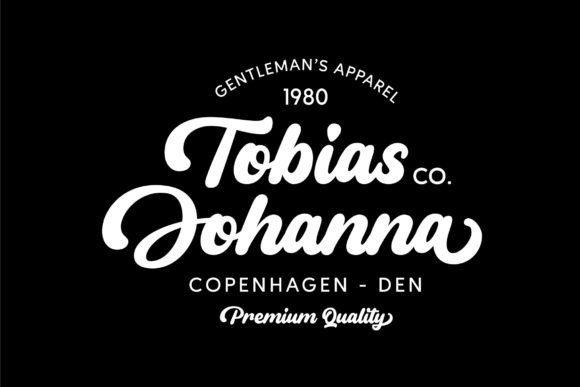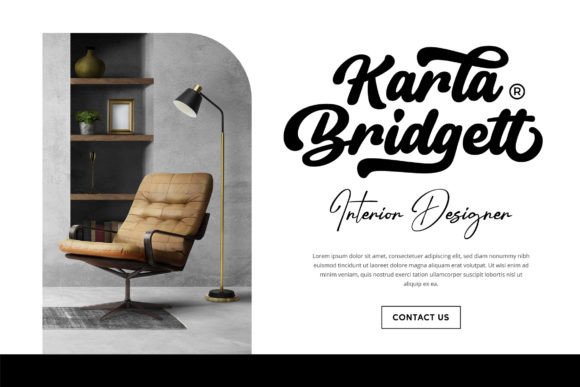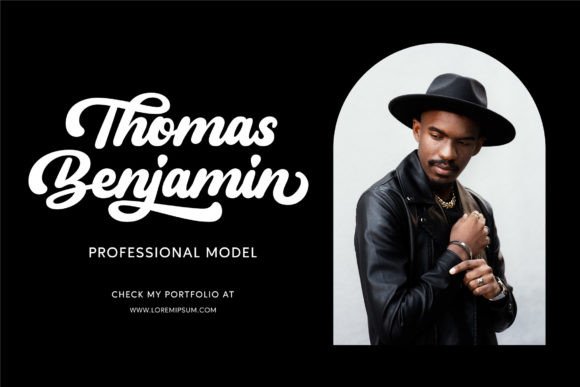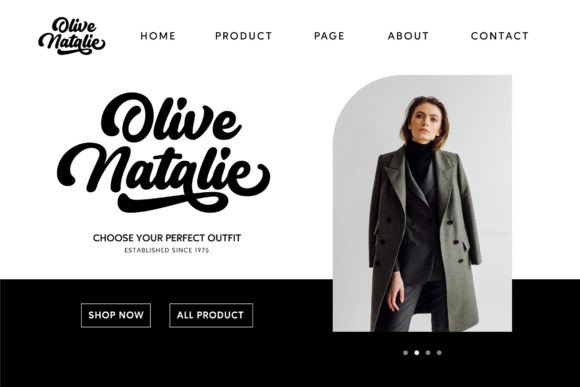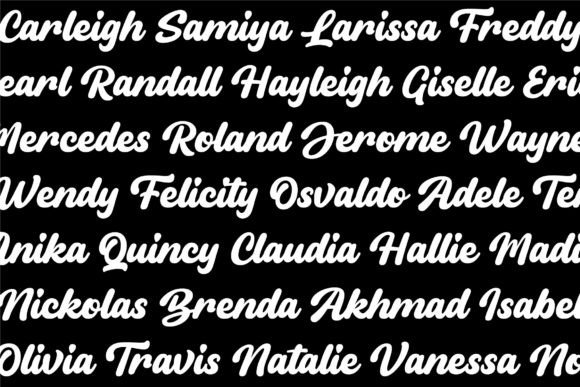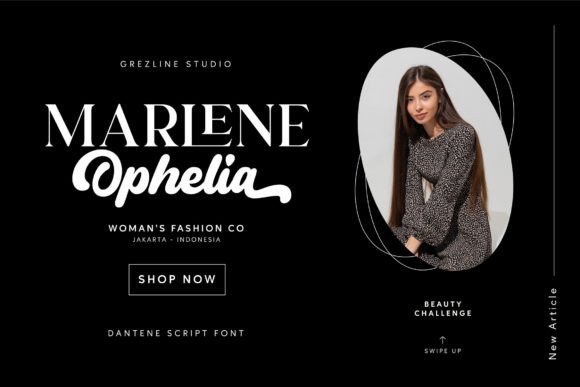
The Birth of Dantene: A Modern Calligraphy Script Font
I still remember the moment I decided to create Dantene. I was working on a project for a client who needed a unique logotype that exuded modern elegance. As I scrolled through font libraries, I found myself stuck in a sea of similar sans-serifs and traditional scripts. That’s when I realized: it was time to craft something new, something that would bring a fresh taste to the world of typography.
Introducing Dantene: A Perfect Blend of Modernity and Elegance
Dantene is a modern calligraphy script font that I’ve carefully crafted to meet the demands of designers, crafters, and creative hobbyists. This font is perfect for logotype, typography design, product packaging, t-shirt design, label poster, headings, letterhead, signage, and anything that needs a modern twist. One of the best things about Dantene is its versatility – you can mix and pair it with other fonts to create a unique and fresh look for your design projects.
Honest Review: The Good, the Bad, and the Quirky
What I Love About Dantene ✨
- 💫 Elegant, flowing lines that bring a touch of sophistication to any design
- 🎨 Extensive OpenType features, including glyphs and stylistic alternates, to give your designs a personal touch
- 🌈 Perfect for branding, packaging, and advertising materials that need a modern edge
- ⚠️ Some characters may require manual kerning for optimal spacing
- ⚠️ Not ideal for body text due to its script nature; best used for headlines and titles
Exploring Alternatives: Similar Fonts to Dantene
If you’re looking for something similar to Dantene or want to experiment with different styles, here are a few alternatives:
- Pacifico: A beautiful, elegant script font with a relaxed feel. Perfect for designs that need a laid-back vibe.
- Great Vibes: A modern script font with flowing lines and a touch of sophistication. Ideal for luxury brands and high-end designs.
- Allura: A stunning script font with an artistic feel. Great for creative projects that need a pop of personality.
- Lobster: A classic script font with a refined look. Suitable for designs that require a sense of tradition and elegance.
The Designer Inspiration Behind Dantene
As a designer, I’m often inspired by the world around me – from the curves of nature to the lines of architecture. Dantene was born from a desire to create a font that captures the essence of modern calligraphy, with its fluid strokes and elegant lines. I wanted Dantene to be more than just a font; I wanted it to be a tool for designers to express their creativity and bring their ideas to life.
Q: What makes Dantene unique?
A: Dantene’s uniqueness lies in its modern calligraphy style, combining elegance with a fresh, contemporary feel.
Q: Does Dantene support OpenType features?
A: Yes, Dantene comes with extensive OpenType features, including glyphs and stylistic alternates, to enhance your designs.
Q: Is Dantene suitable for body text?
A: Due to its script nature, Dantene is best used for headlines and titles. For body text, consider using a more traditional sans-serif or serif font.